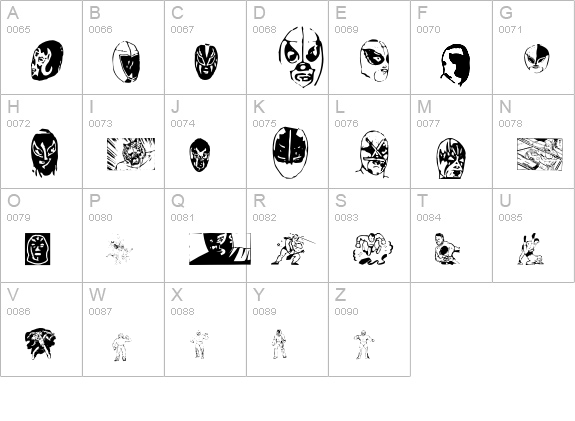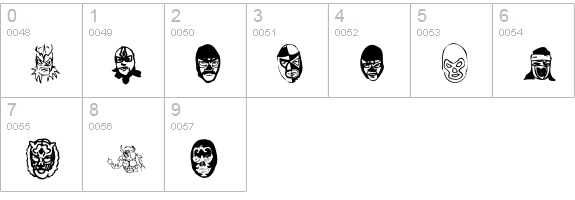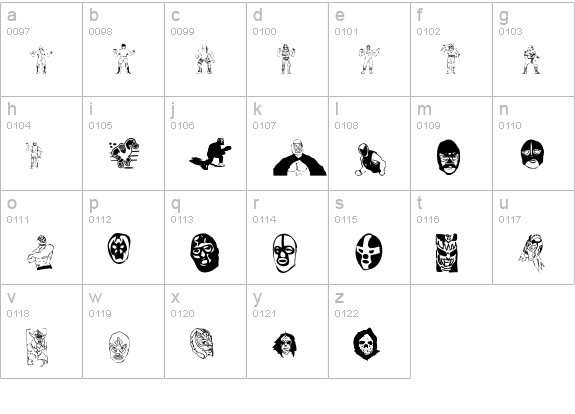
MilMascaras Font Details
MilMascaras font is a captivating and stylish typeface that exudes a sense of mystery and sophistication. Inspired by the iconic luchador wrestler Mil Mascaras, this font features bold lines and sharp angles that give it a strong and dynamic presence. Perfect for creating eye-catching headlines, posters, or branding materials, MilMascaras font adds a touch of drama and flair to any design project. The best part? MilMascaras font is completely free to download at FontsMarket.com. Yes, you read that right - you can get your hands on this unique and striking font without spending a dime. So why wait? Download MilMascaras font today and unleash the power of this bold and distinctive typeface in your next design project.